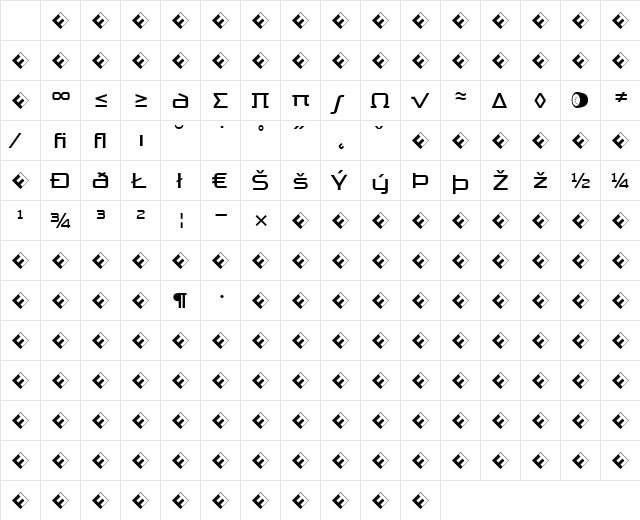
Complete TradeMarker Light glyph index. Displaying only characters natively supported by TradeMarker Light font.
TradeMarker is a composed and adaptable typeface that performs quietly and consistently across a wide range of design contexts. Its slender proportions lend an understated elegance to any composition.
Who designed the TradeMarker Light font?